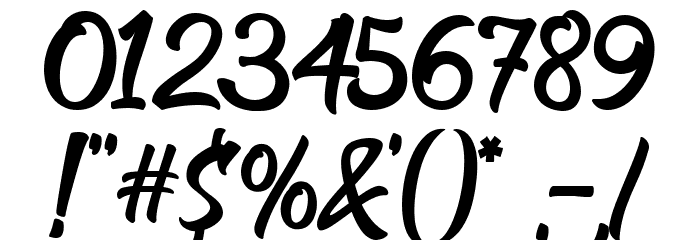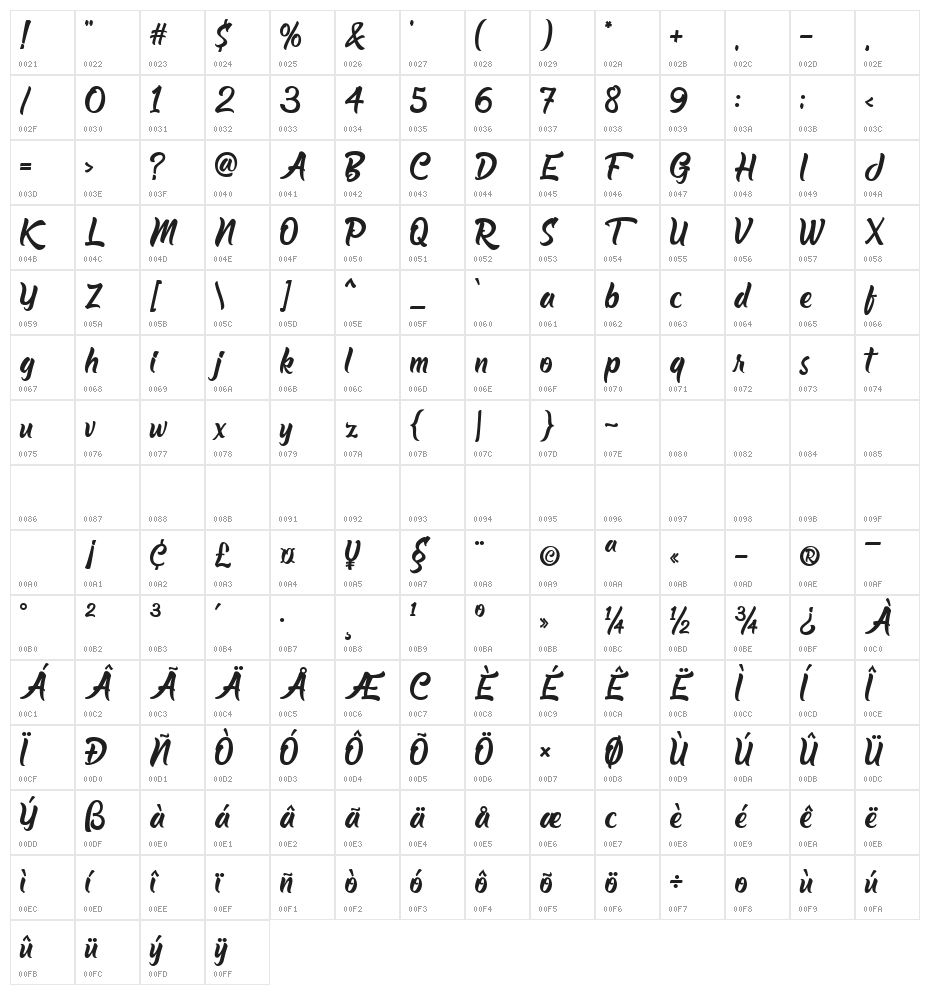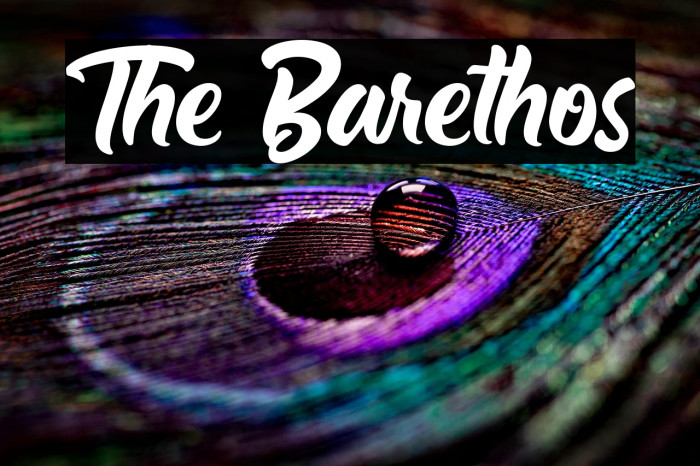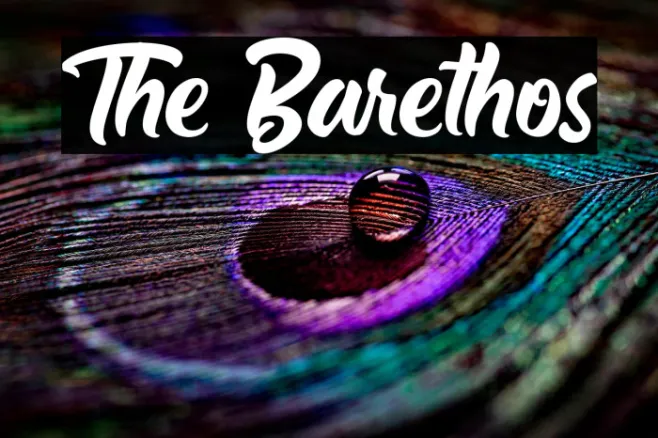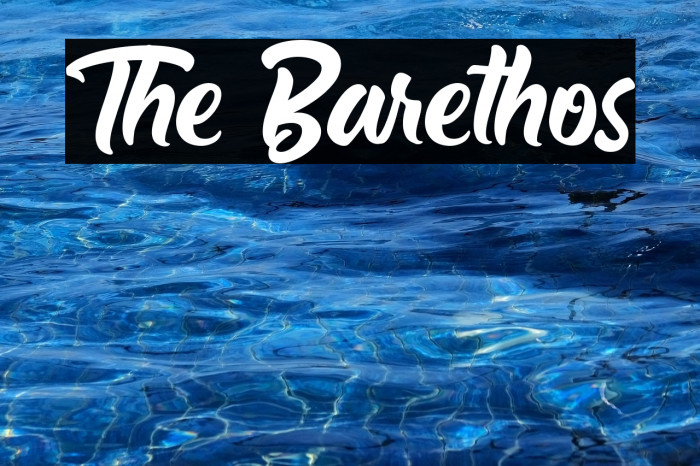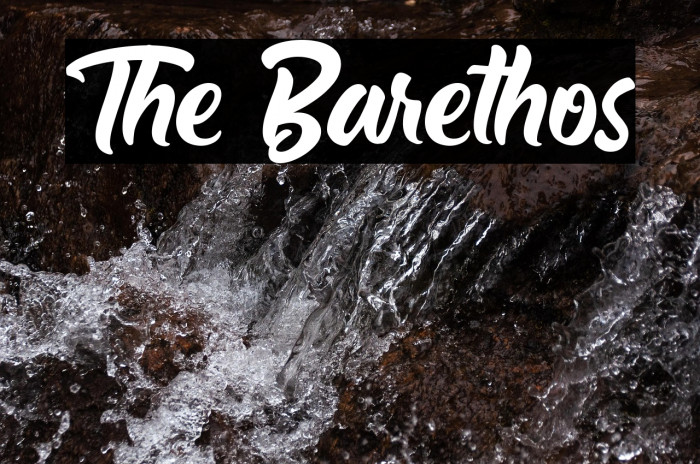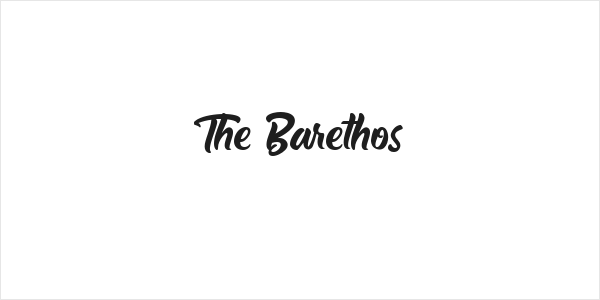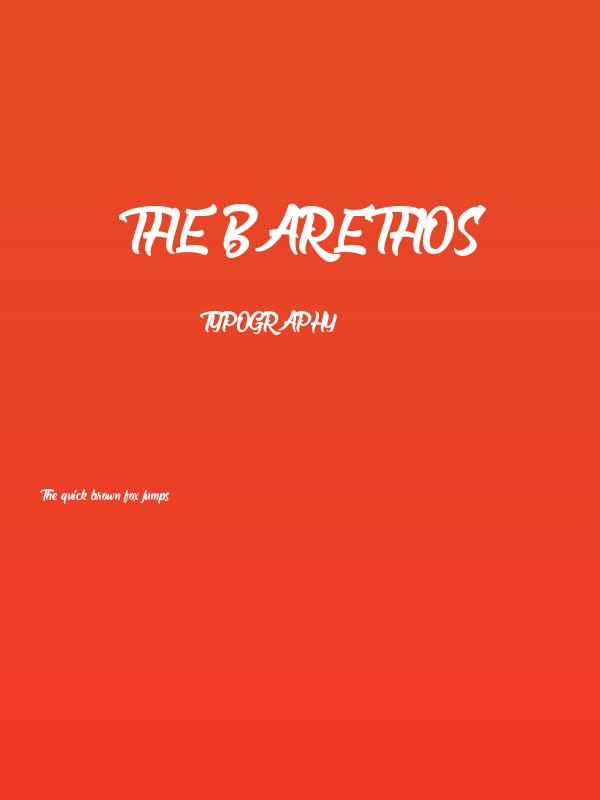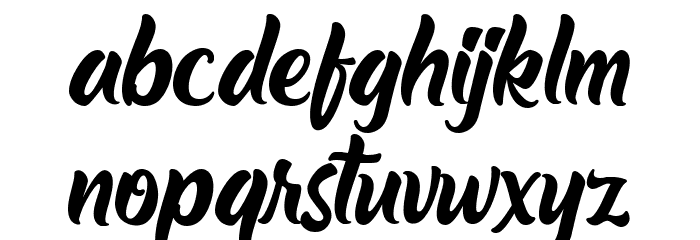
The Barethos Font
The Barethos Description
This font features a bold and dynamic script style, characterized by its flowing and connected letterforms. The strokes are thick and expressive, giving a sense of movement and energy. The uppercase letters are particularly striking with their sweeping curves and dramatic flair, while the lowercase letters maintain a consistent rhythm and balance. The numerals are equally bold, ensuring they stand out in any design. Special characters are designed with the same attention to detail, making them cohesive with the overall style. This font is ideal for creating eye-catching headlines or logos that require a touch of elegance and boldness.